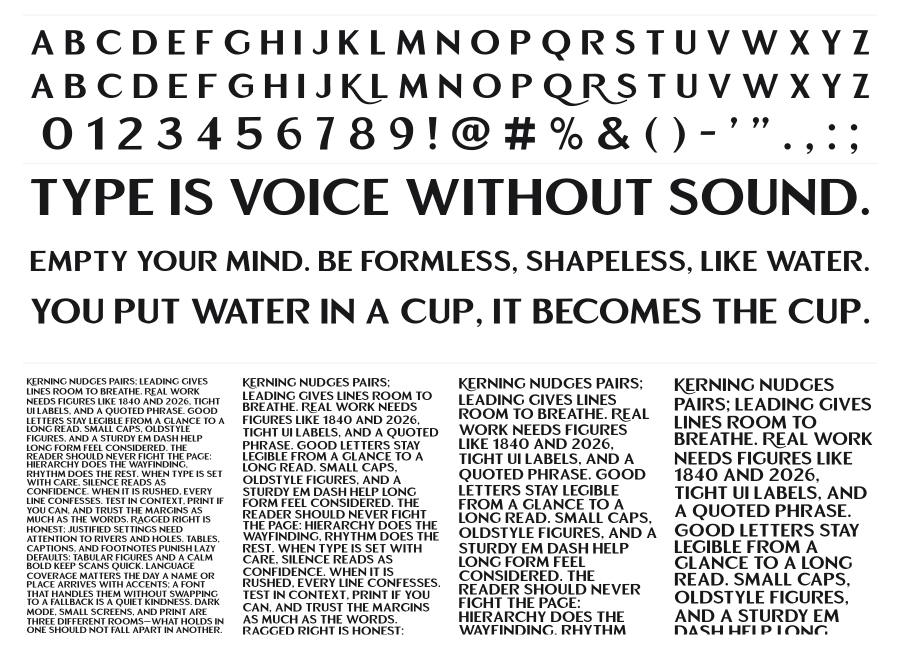
Emerald Crown
Emerald Crown is a bold geometric sans-serif from Fikryal Studio with clean, rational construction and near-monoweight strokes. The wide proportions and flat terminals give it a contemporary luxury feel that sits comfortably in fashion branding, editorial headlines, and identity work. Straightforward but purposeful.